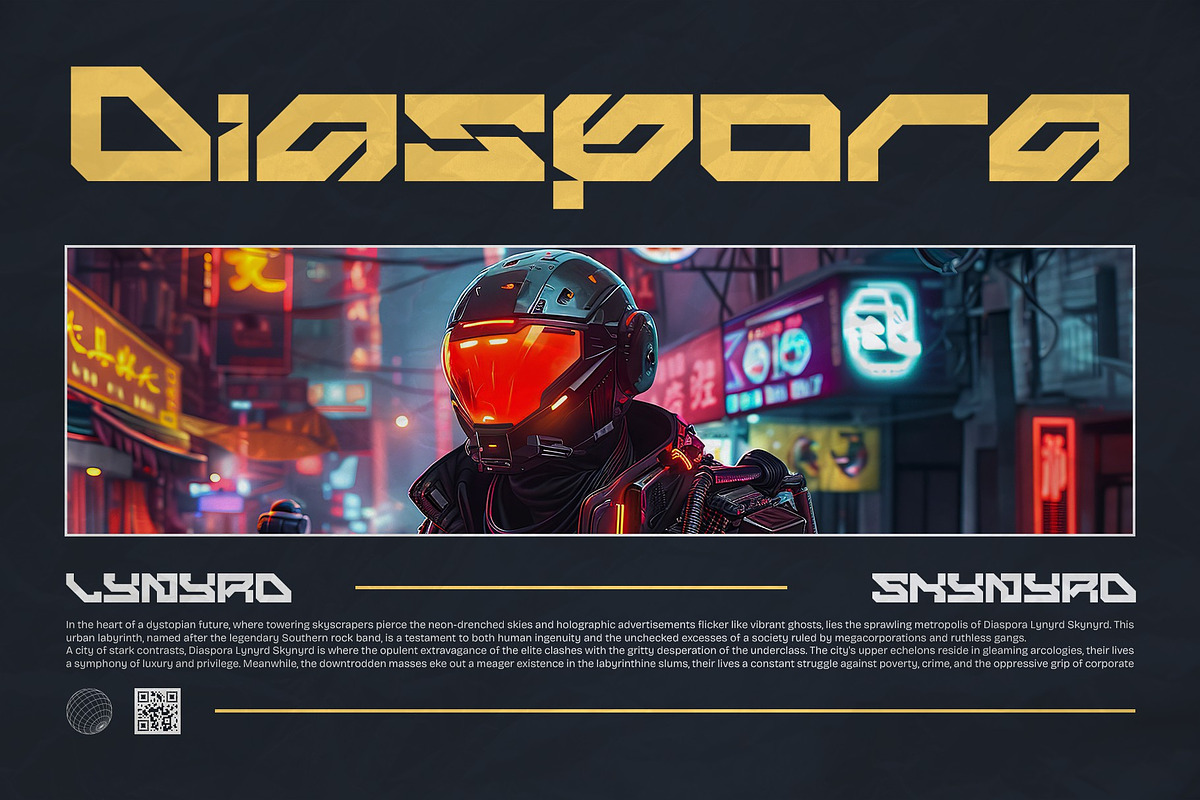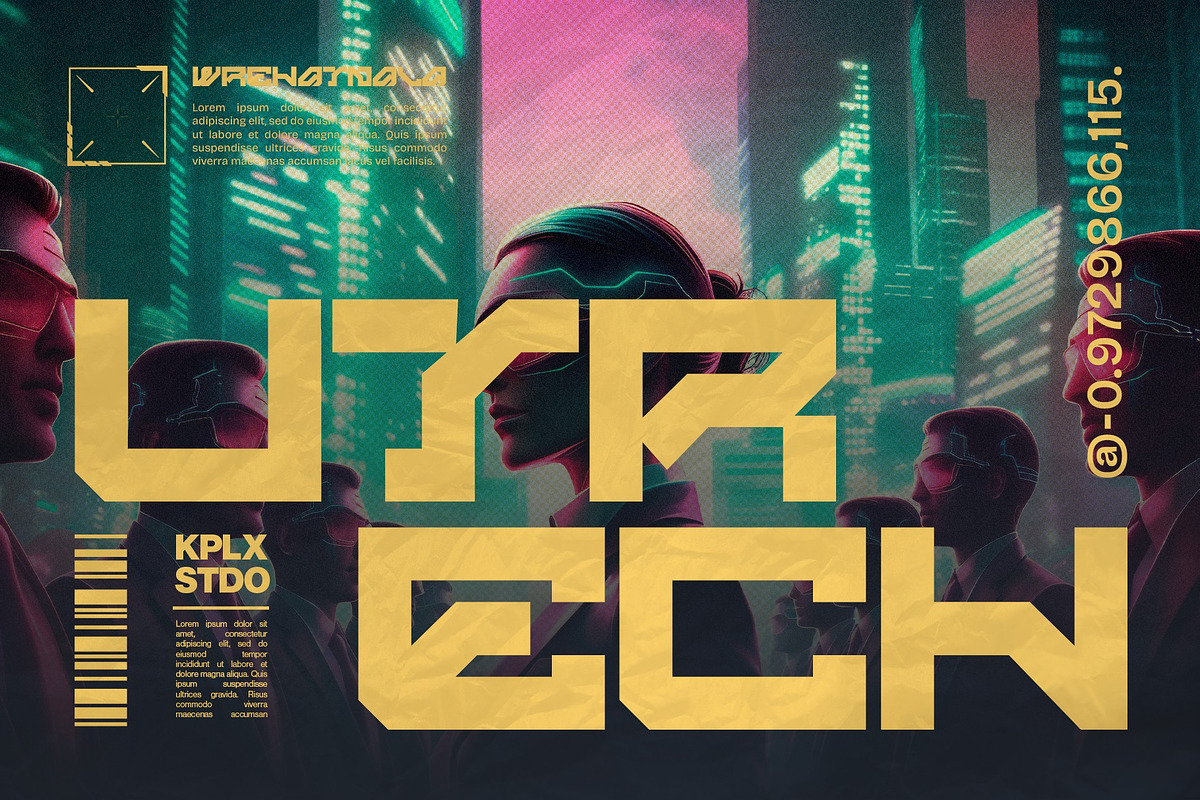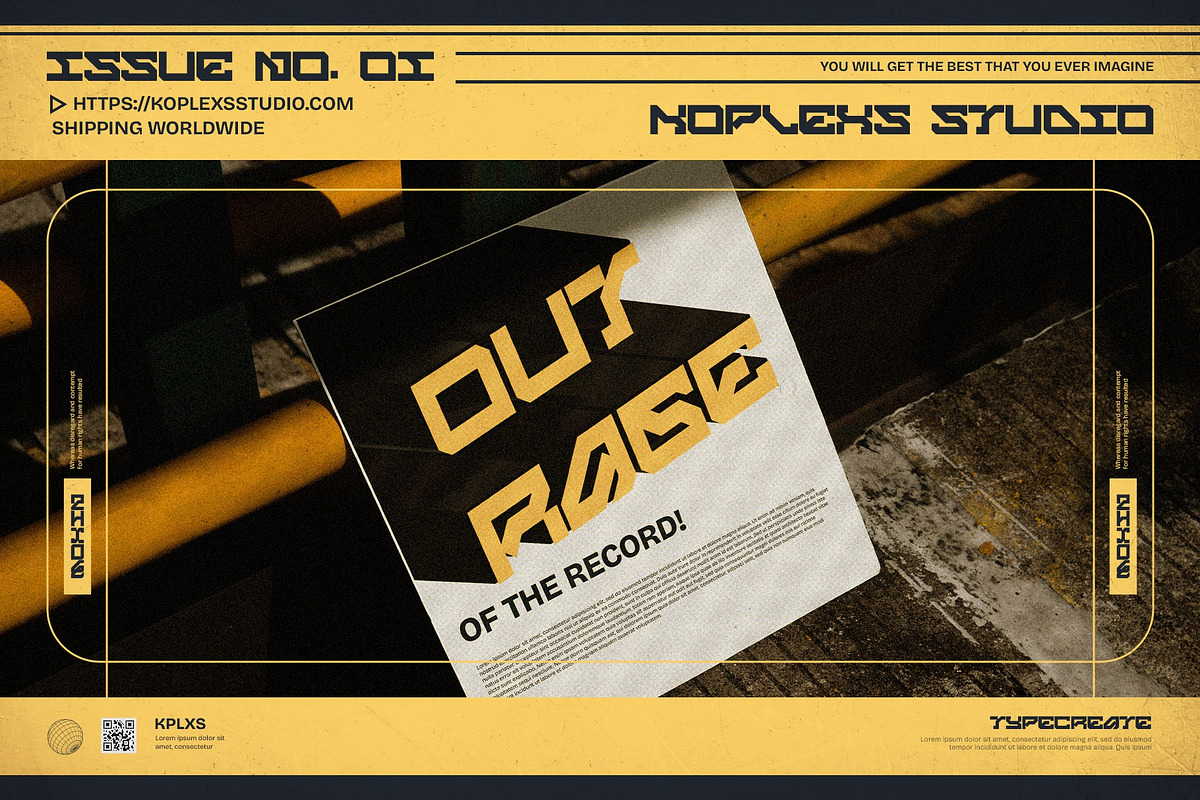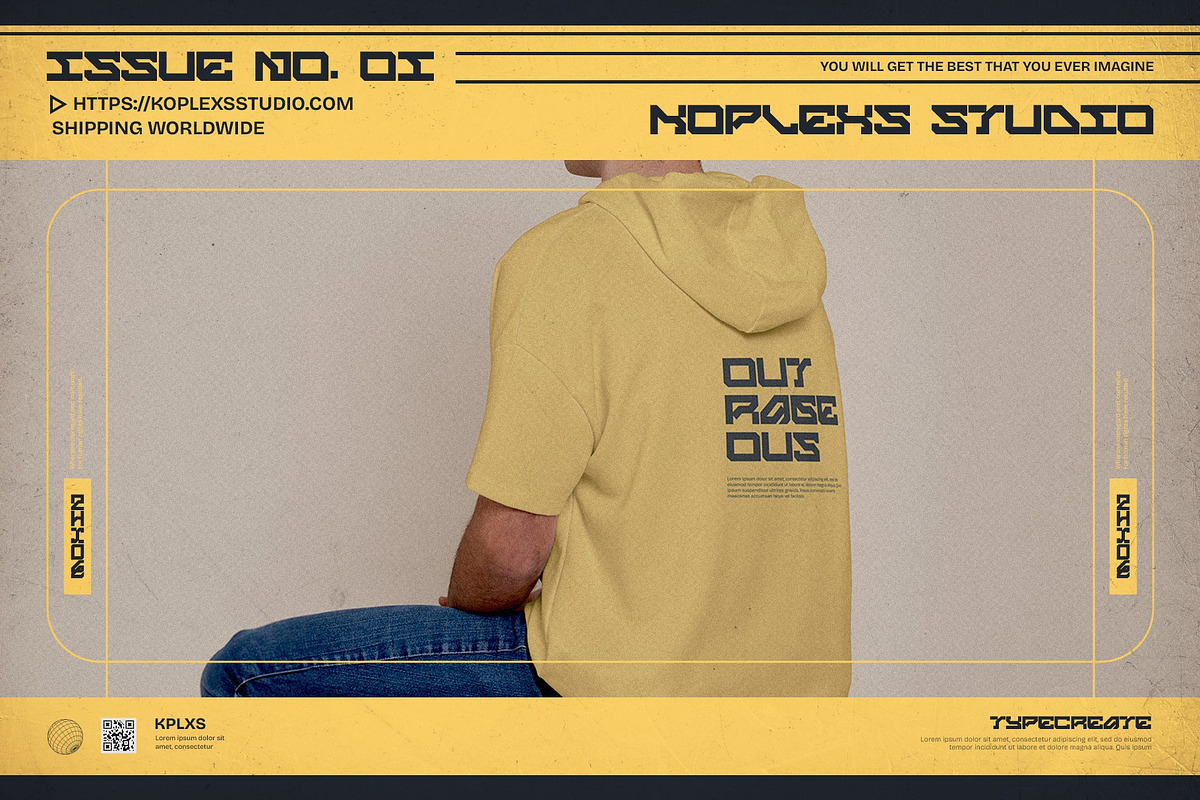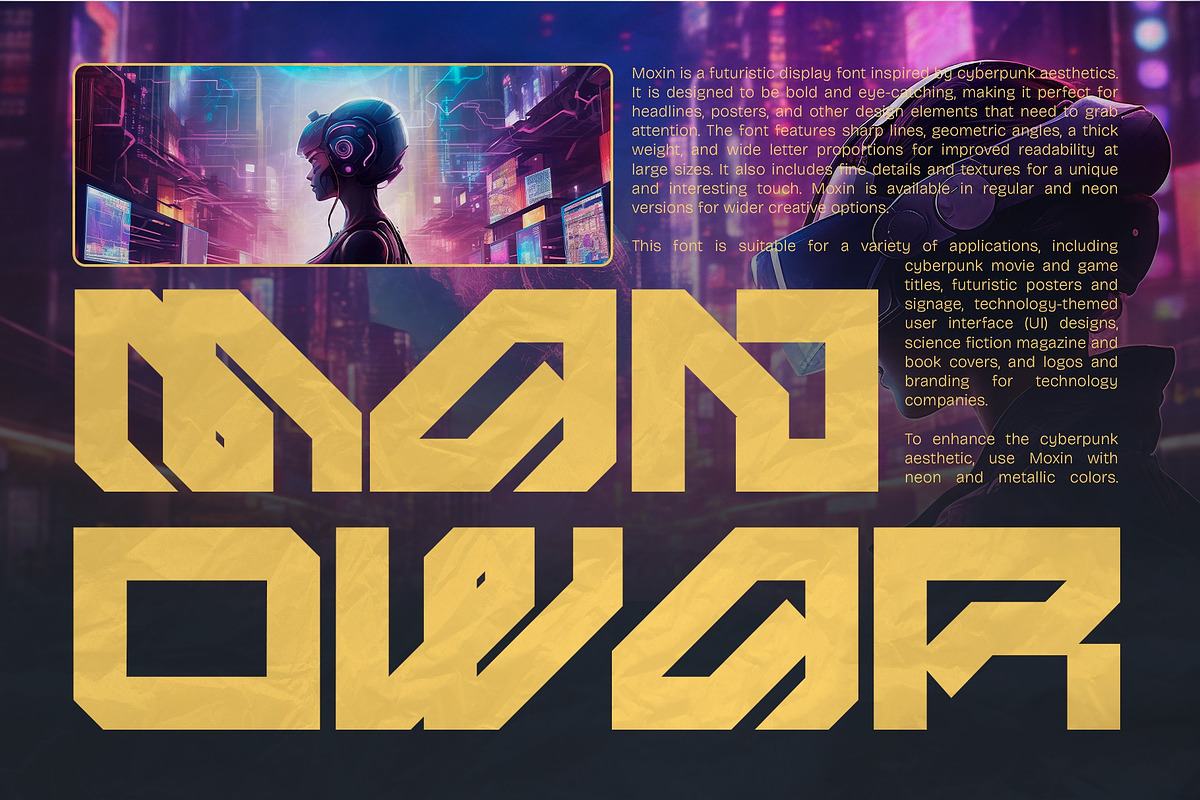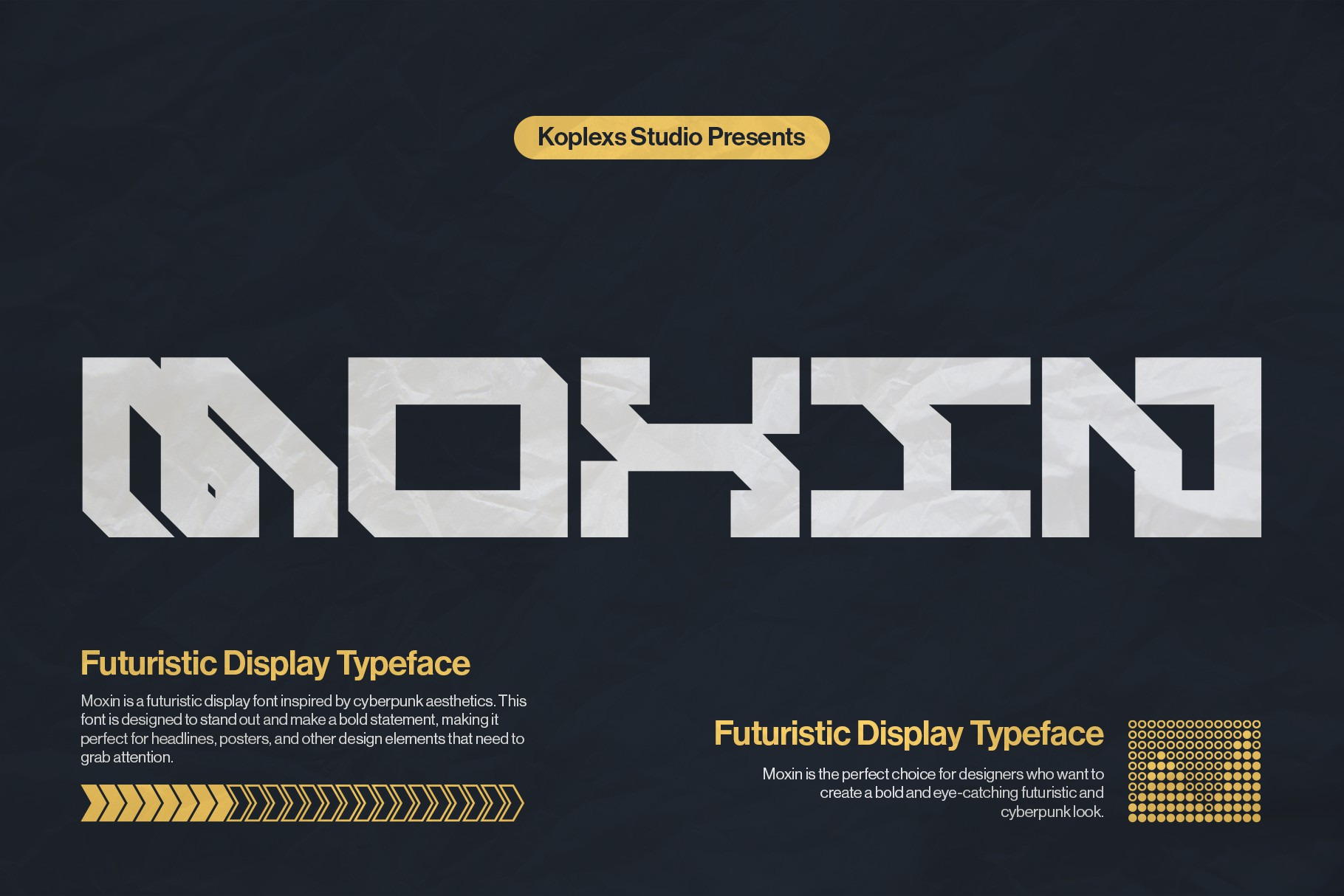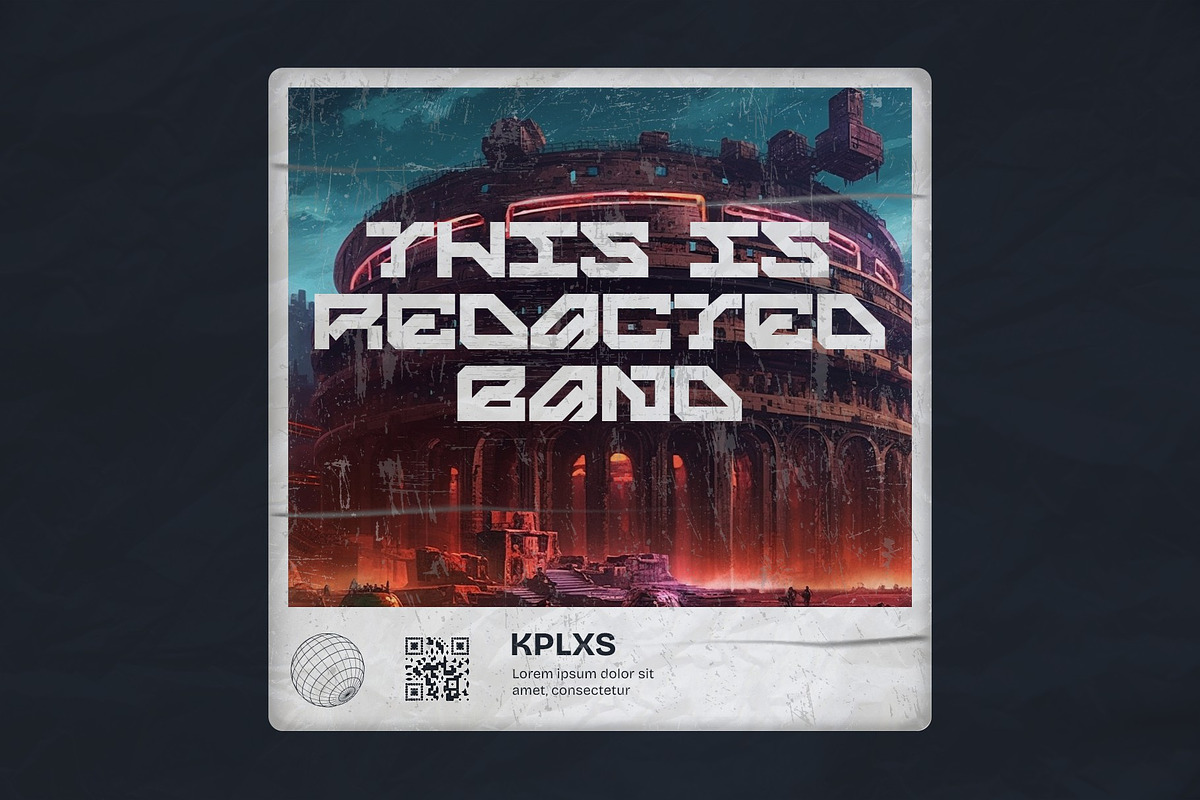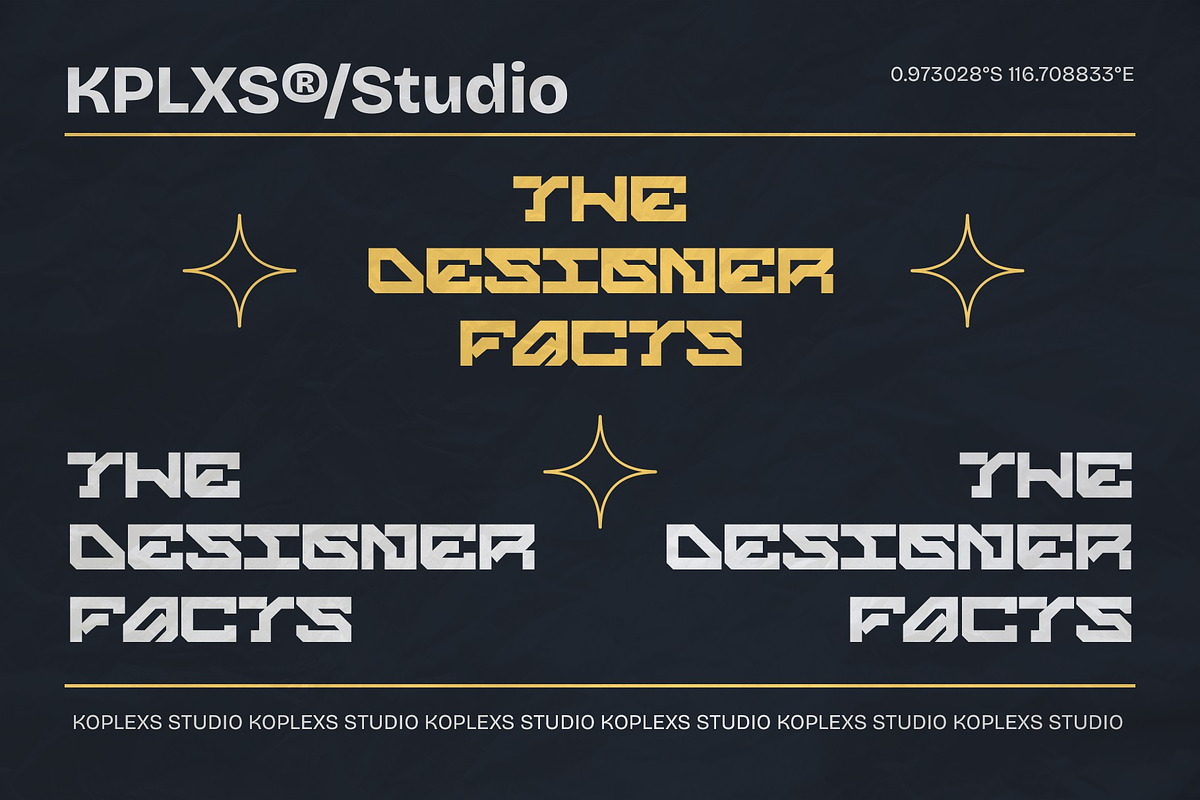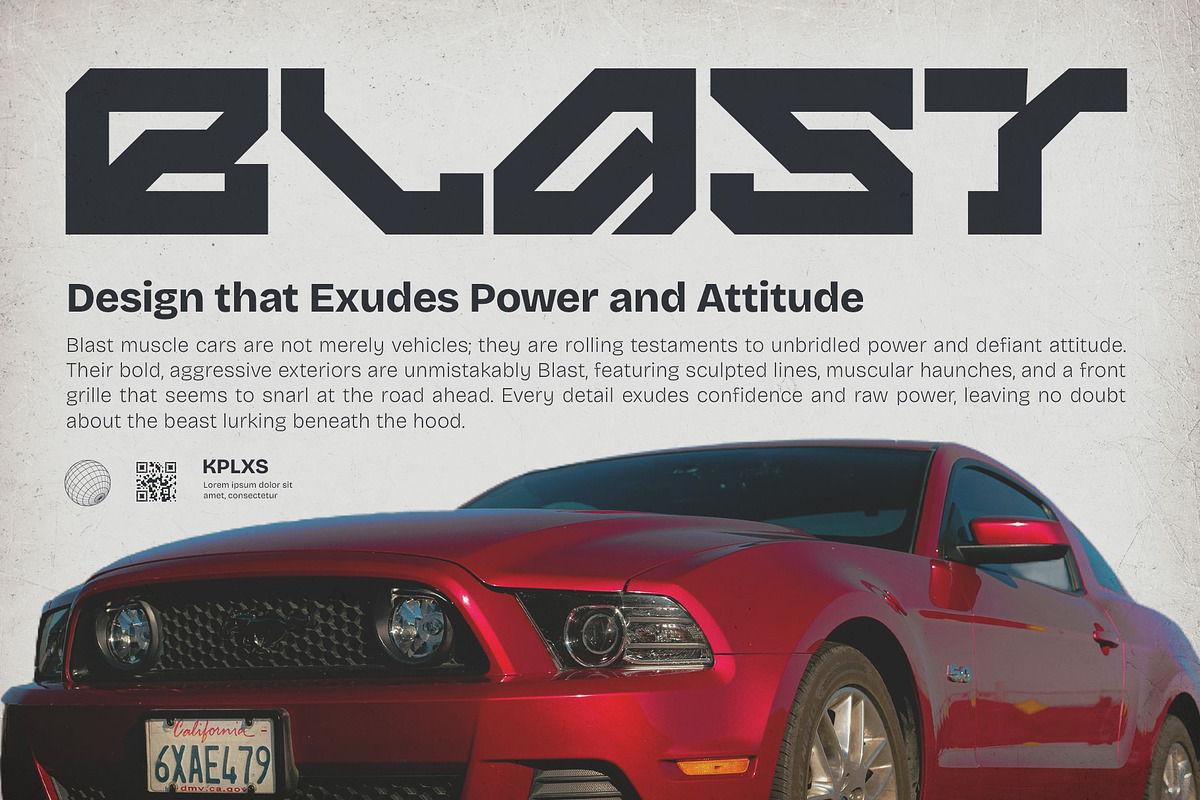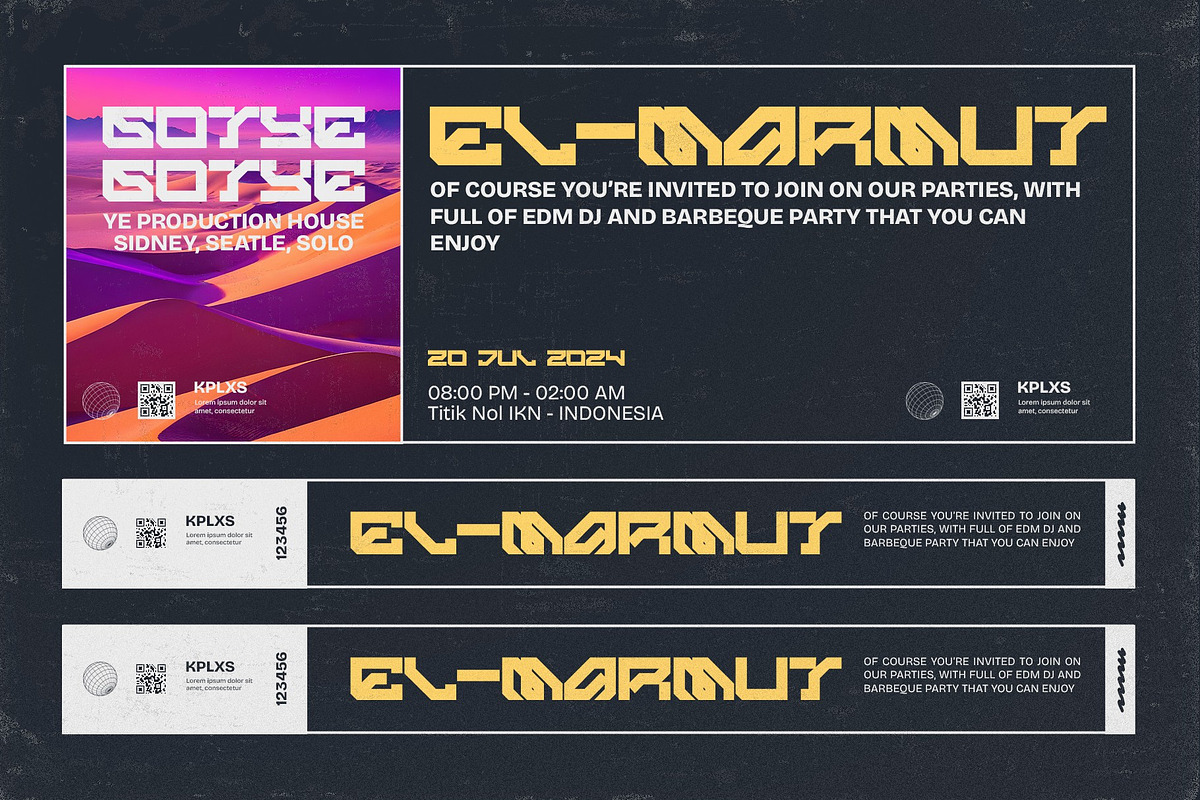
Moxin - Futuristic Font
Moxin is a sleek and innovative futuristic font designed to bring a modern and cutting-edge aesthetic to your creative projects. With its clean lines and unique geometric shapes, Moxin is perfect for technology-driven designs, sci-fi themes, gaming graphics, modern branding, digital interfaces, and more.
This font is highly versatile, offering uppercase letters, numerals, punctuation, and multilingual support to suit a wide range of applications. Whether you're designing a website, logo, poster, or merchandise, Moxin adds a distinctive futuristic touch that sets your work apart.
- Uppercase letters
- Numerals and punctuation
- Ideal for sci-fi, tech, and gaming designs